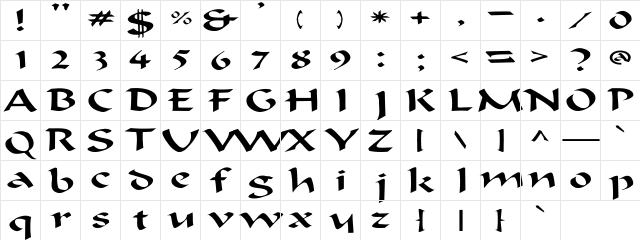
Merlin Expanded Regular
Design Context for Merlin Expanded Typeface
Merlin Expanded is a composed and adaptable typeface that performs quietly and consistently across a wide range of design contexts.